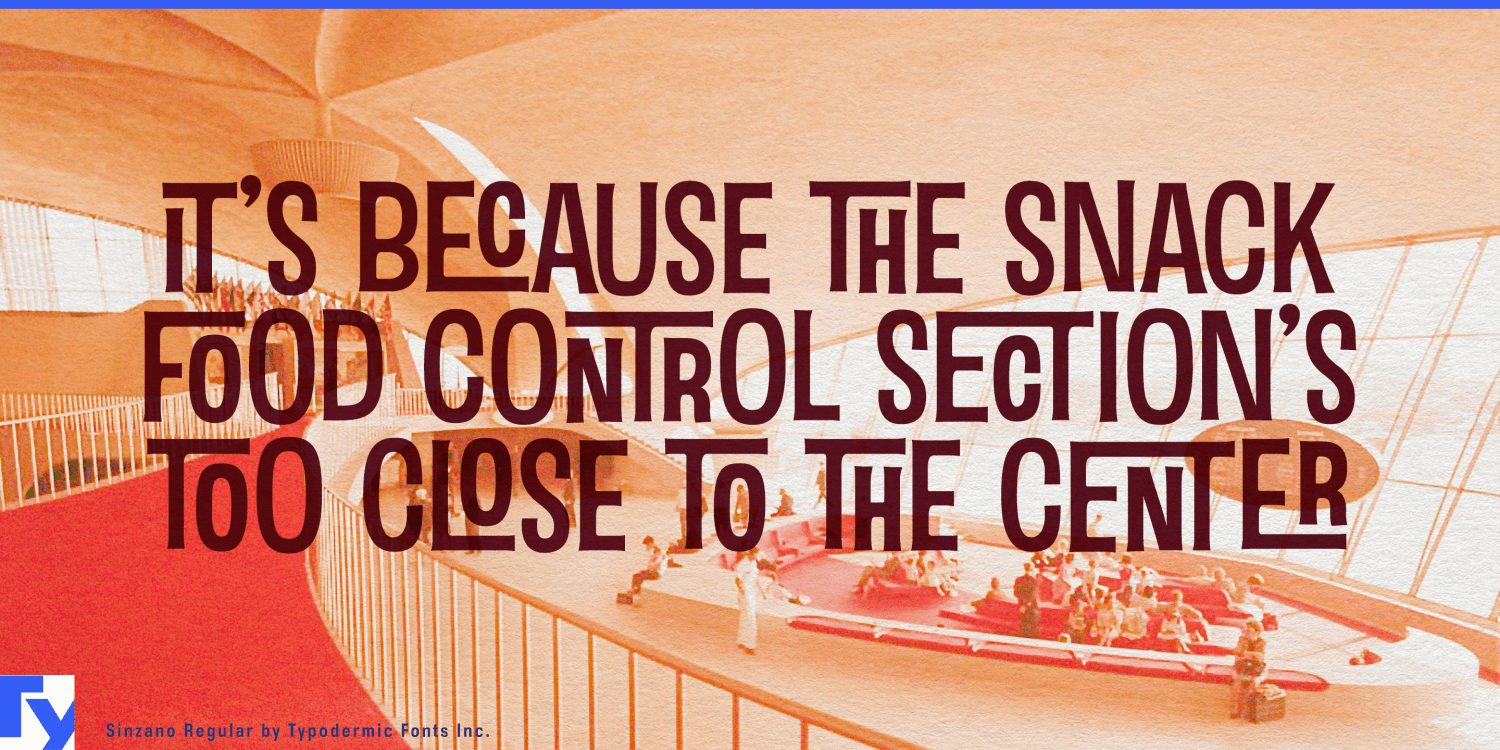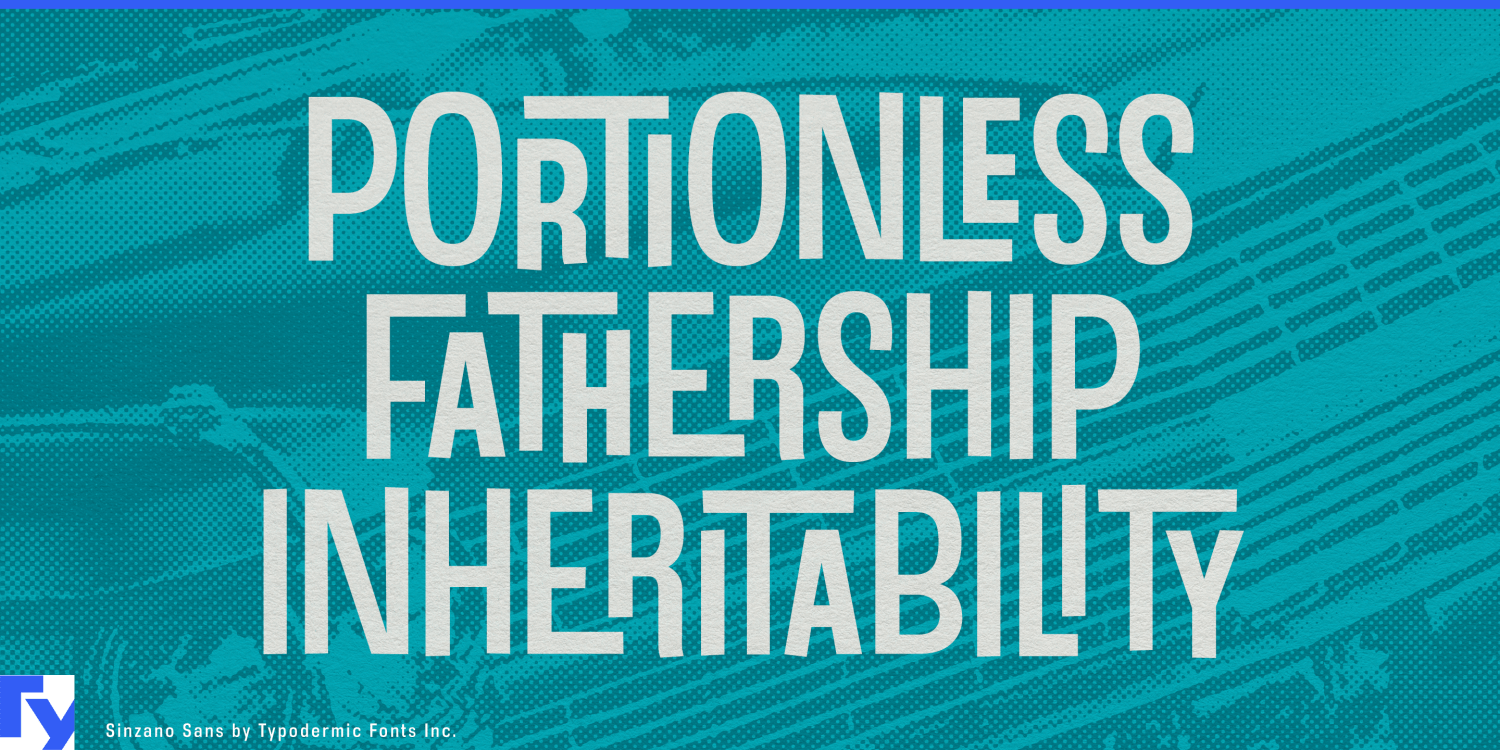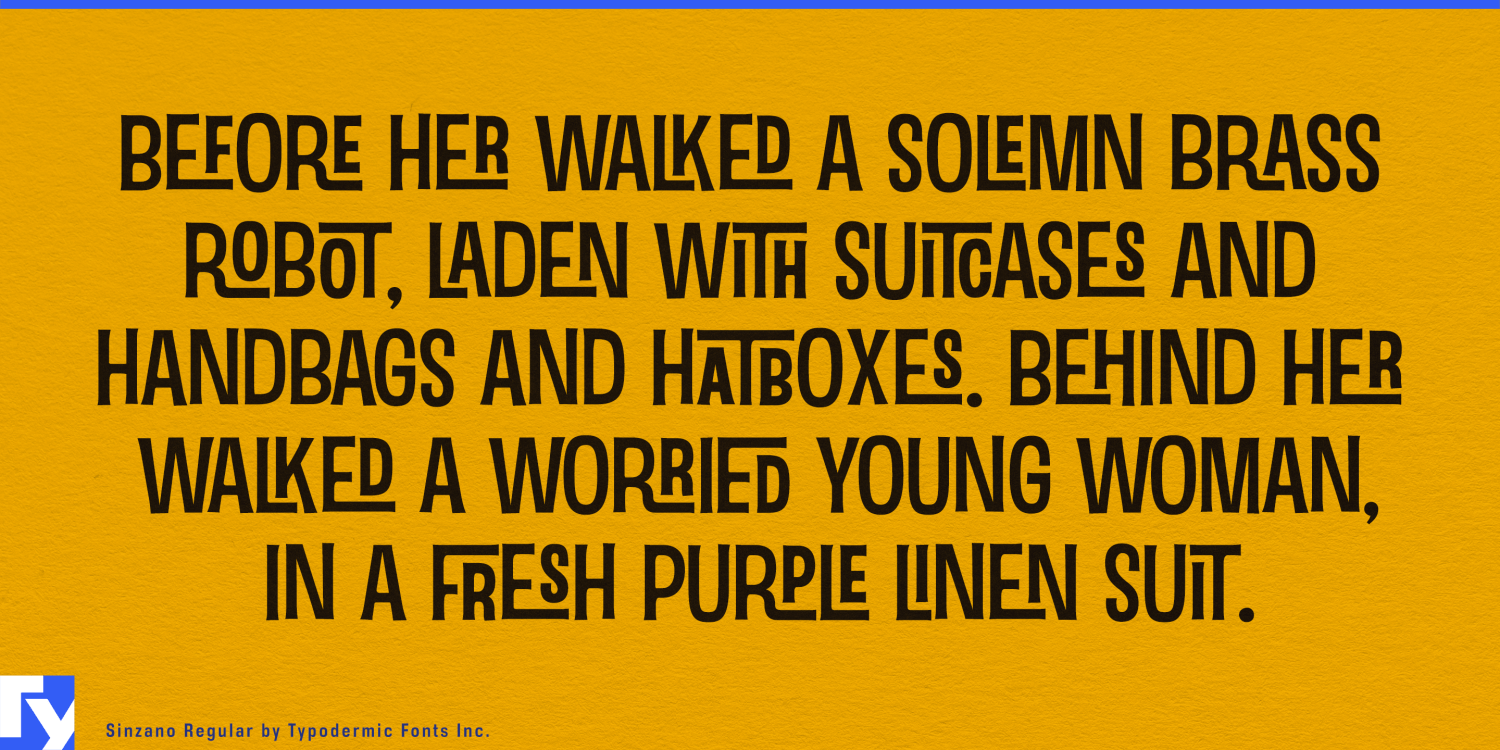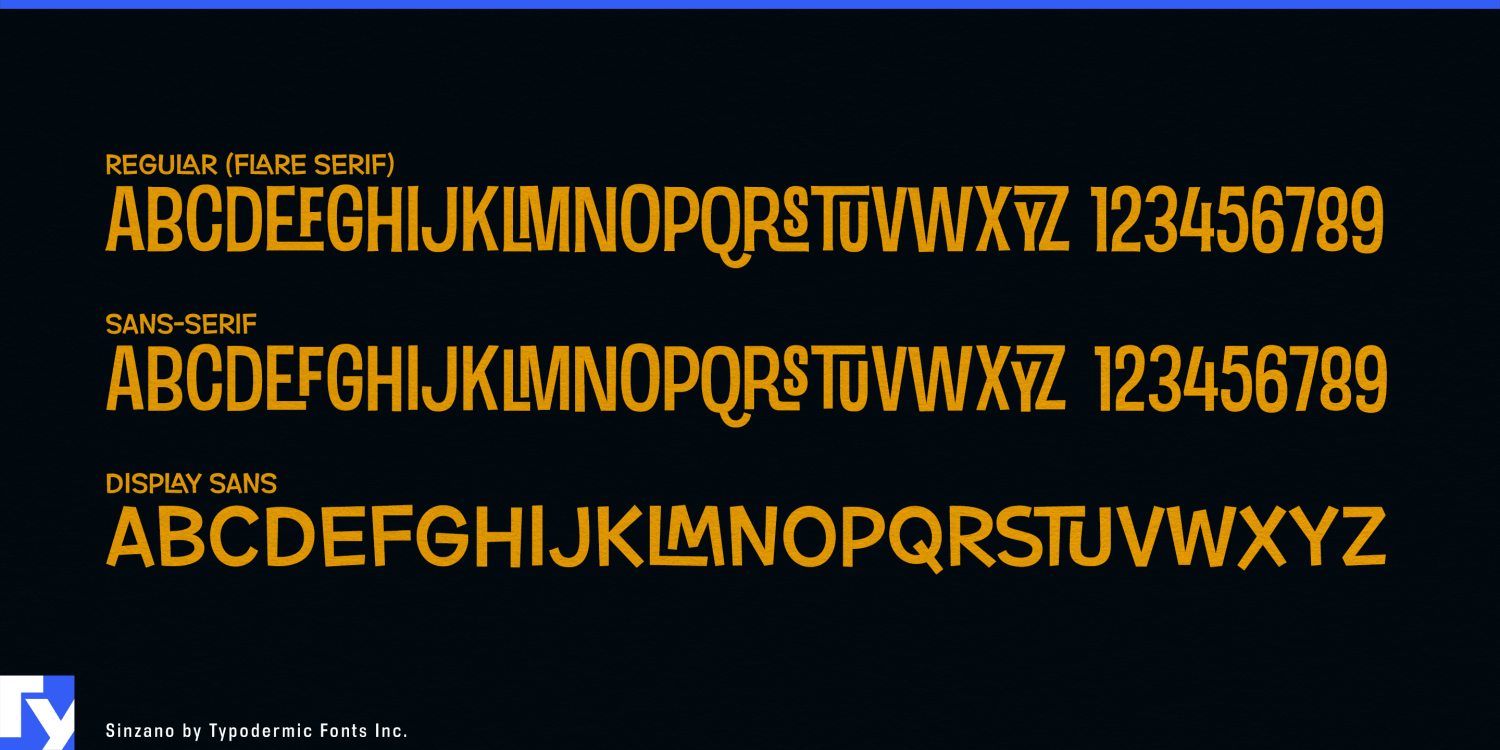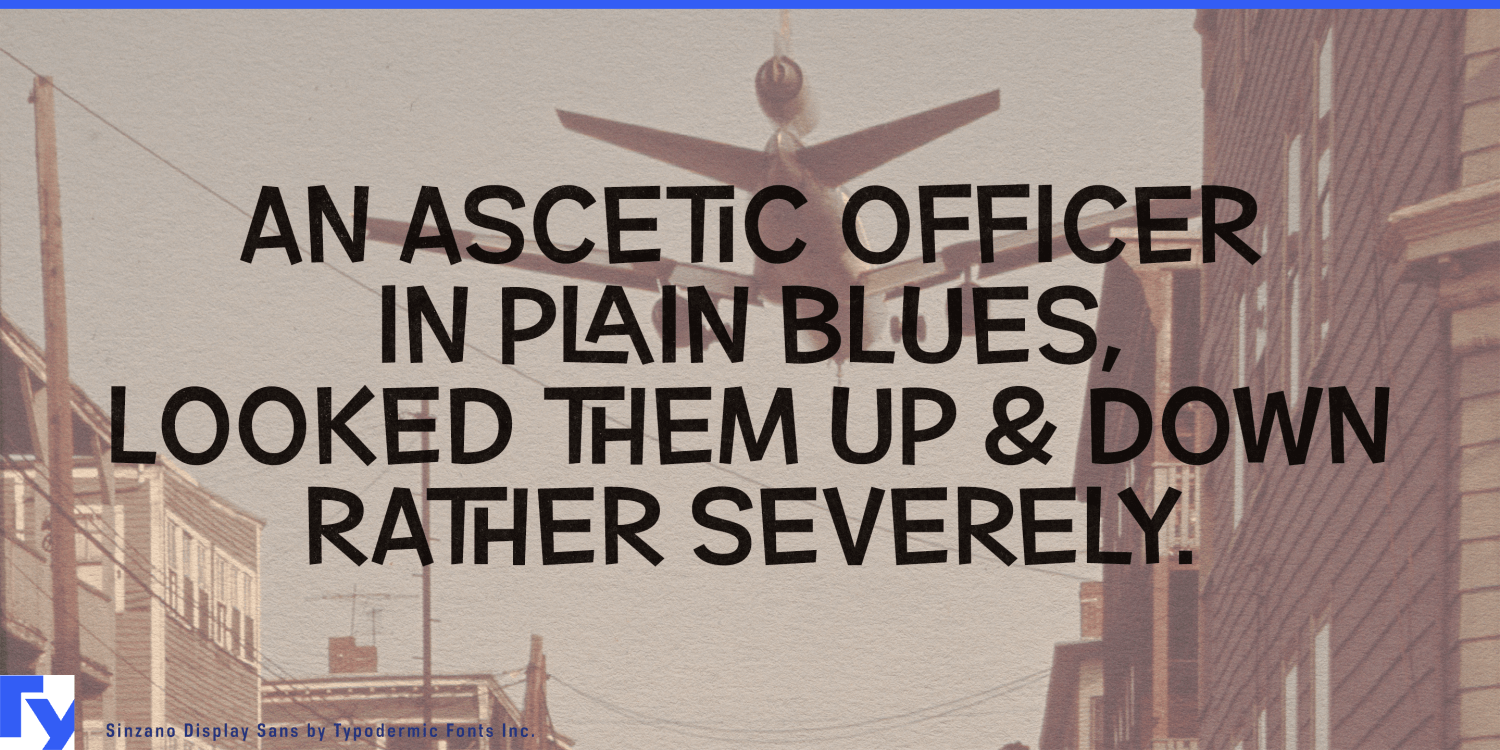
About Sinzano
Listen up, cool cats! Sinzano is a typographic jam session that’ll make your designs sing. This font family is the epitome of cool, with letterforms that interlock and flow like notes in a smooth jazz solo. Sinzano Regular struts onto the scene…